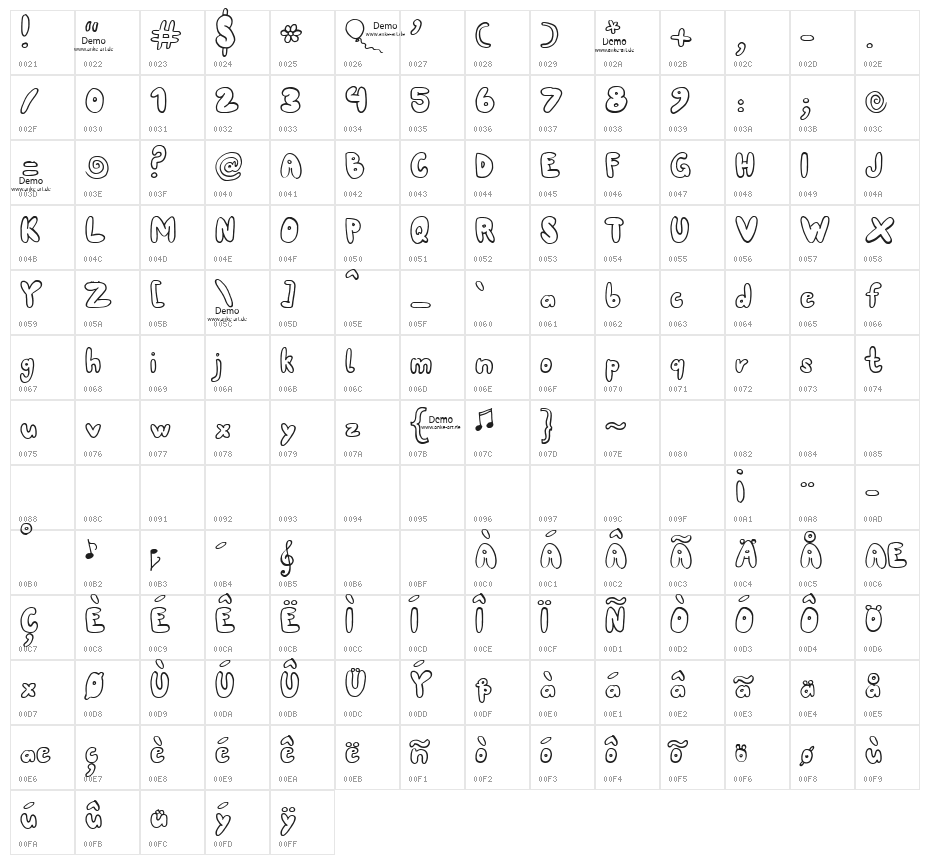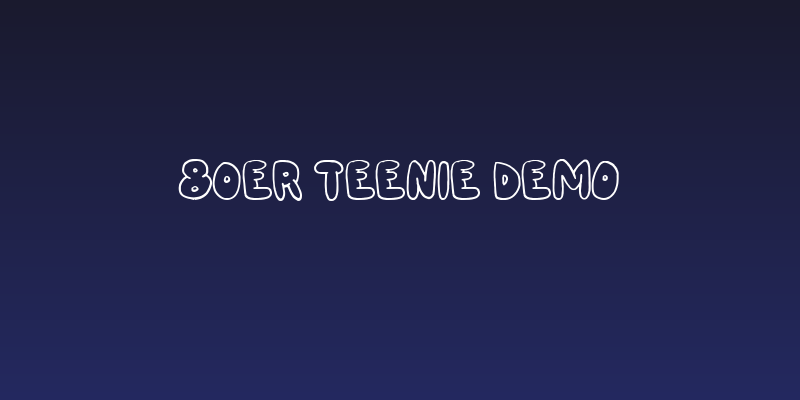
80er Teenie Demo Font
80er Teenie Demo Description
This playful and whimsical font features rounded, bubble-like characters that evoke a sense of fun and nostalgia. The letters are bold and have a hand-drawn appearance, with a consistent thickness throughout each character. The font includes both uppercase and lowercase letters, as well as numbers and a variety of special characters. Its unique style is reminiscent of 1980s pop culture, making it ideal for projects that aim to capture a retro or youthful vibe. The characters are evenly spaced, ensuring readability while maintaining a casual and informal look.
| Proposed Projects | Perfect for children's book covers, retro-themed posters, playful branding, or any project needing a fun, nostalgic touch. |